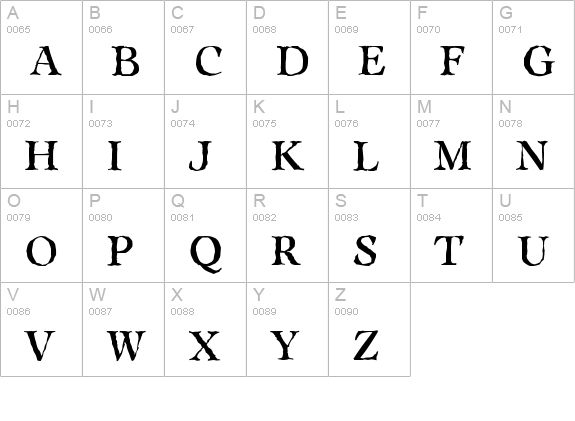
LeamingtonAntique-Regular Font Details
LeamingtonAntique-Regular is the standard, neutral variant in the LeamingtonAntique typeface family \xE2\x80\x94 well suited to general body text, paragraphs, and standard typographic work.
LeamingtonAntique-Regular font exudes timeless elegance and sophistication with its intricate details and classic design. This beautiful serif font is perfect for adding a touch of vintage charm to your projects, whether it be invitations, logos, or branding materials. What sets LeamingtonAntique-Regular font apart is its versatility and ability to seamlessly blend into a variety of design styles. Its graceful curves and sharp serifs make it an excellent choice for both formal and informal applications. The best part? LeamingtonAntique-Regular font is freely available to download at FontsMarket.com. Embrace the beauty of this exquisite font and elevate your designs with its distinctive flair and character.